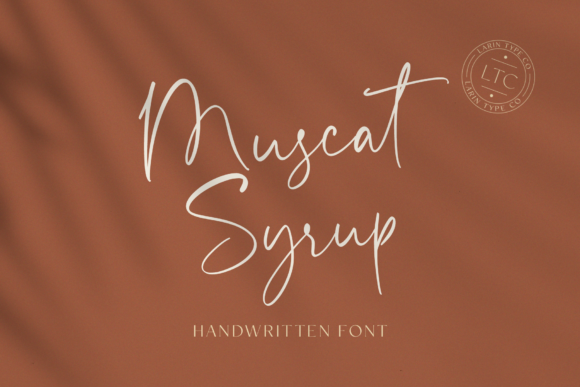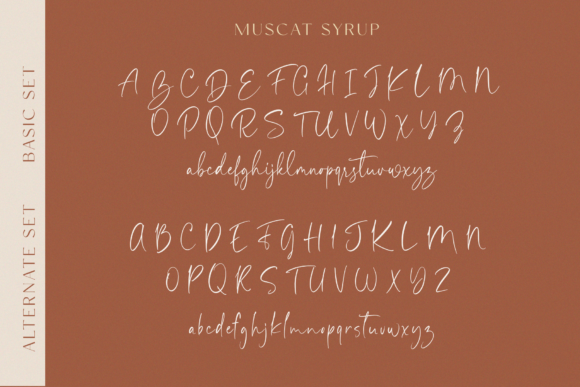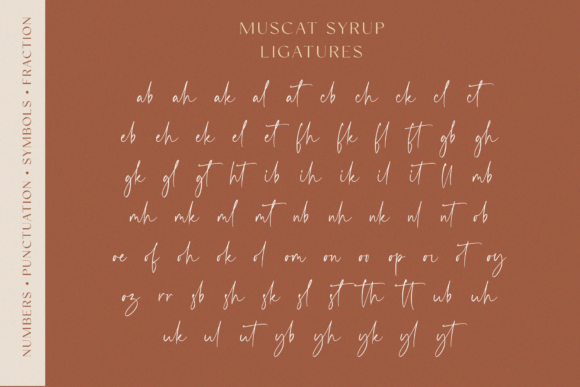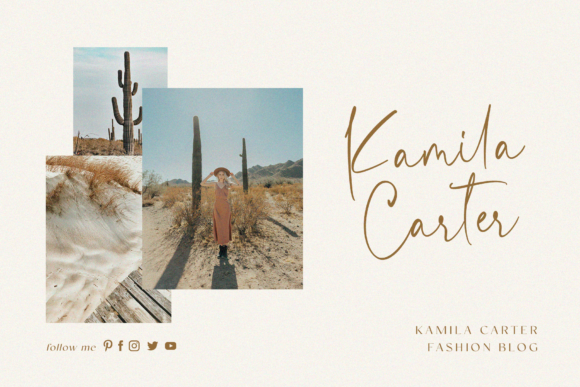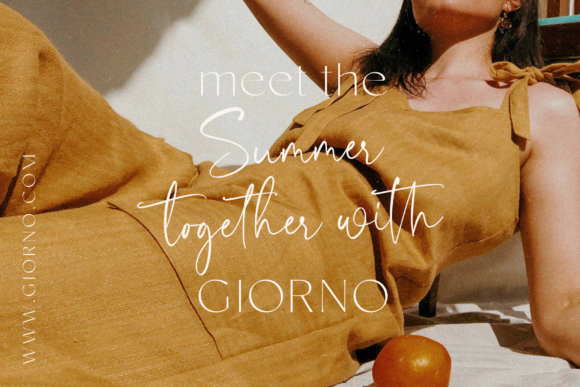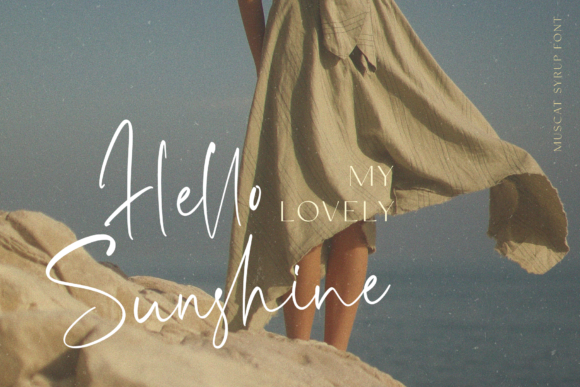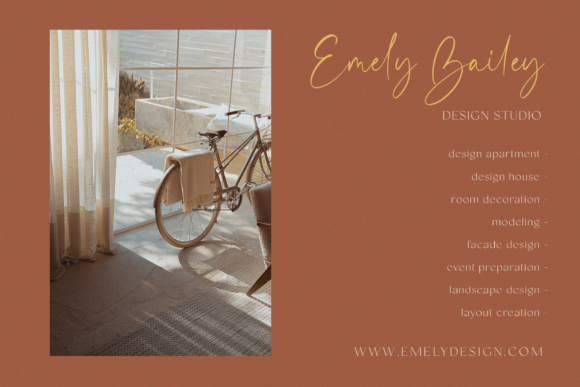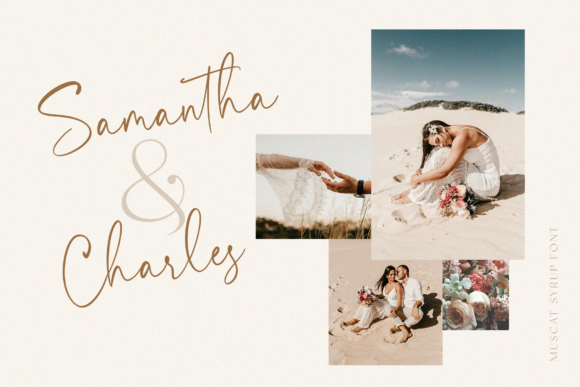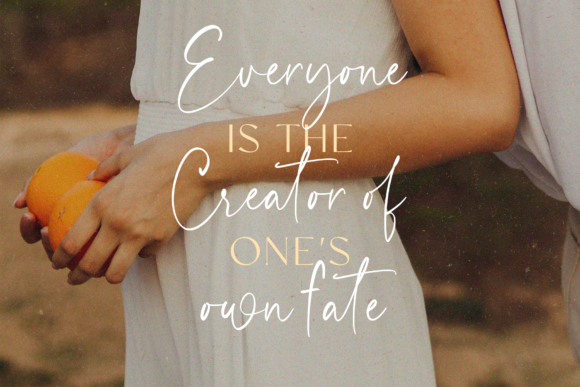
Muscat Syrup Font
About Muscat Syrup Font
Muscat Syrup, a font with a lovely and timeless handwritten style, emerges as an excellent choice for crafting eye-catching logos, establishing memorable branding, and curating impactful quotes. Within every letter, Muscat Syrup brings forth a unique and beautiful touch, infusing your designs with life and sophistication.
The loveliness of Muscat Syrup lies in its timeless handwritten quality, adding a personal and authentic charm to your creative projects. This font becomes a vessel for your artistic expression, allowing you to create designs that not only catch the eye but also resonate with a sense of enduring beauty.
Imagine Muscat Syrup gracing a logo, where each letter becomes a visual signature. The unique touch within every stroke ensures that your brand identity is not just distinctive but also carries a timeless elegance. This font becomes more than a typeface—it becomes a visual representation of the essence of your brand.
In the realm of branding, Muscat Syrup stands out as a versatile tool. Its handwritten aesthetic, coupled with the individual beauty of each letter, fosters a connection between your brand and its audience. Whether you’re working on product packaging, marketing materials, or any branding collateral, this font adds a touch of sophistication that transcends trends.
Crafting quotes with Muscat Syrup transforms words into art. Each letter contributes to the overall beauty of the composition, turning your quotes into visually captivating expressions. The timeless quality of the font ensures that your messages endure, leaving a lasting impact on your audience.
As you incorporate Muscat Syrup into your design toolkit, may its lovely and timeless handwritten style inspire creativity and elevate your projects. Let each letter be a brushstroke on the canvas of your imagination, bringing your designs to life with a touch of beauty and sophistication.